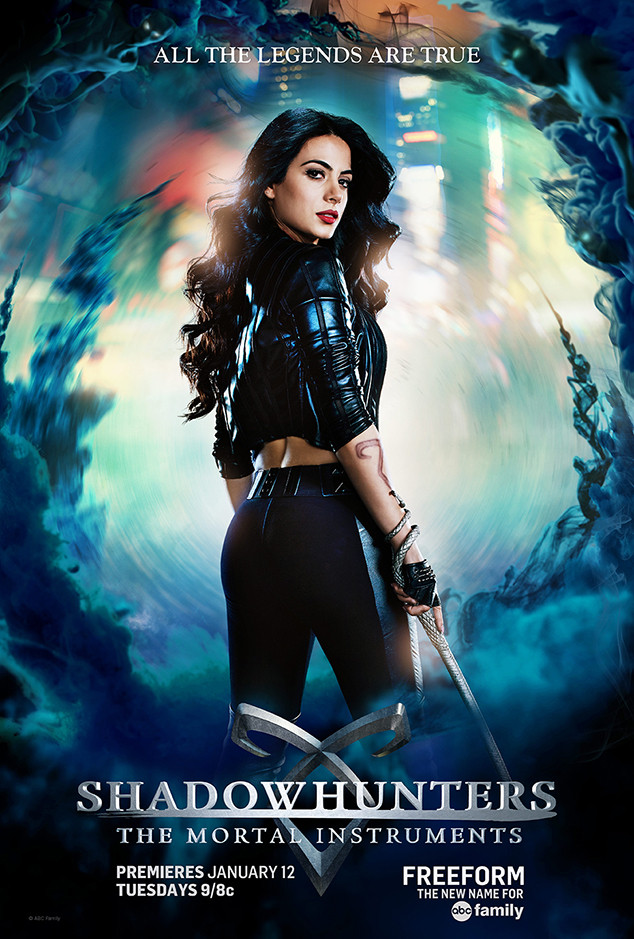
Shadowhunters Font
FantasyShadowhunters is a supernatural drama series based on the popular book series The Mortal Instruments by Cassandra Clare. It follows a group of demon hunters called Shadowhunters who fight to protect the human world from supernatural threats.
The TV show poster features the title "Shadow Hunters" in ITC Legacy Serif, with the main title in Legacy Serif Bold and the subtitle in Legacy Serif Book. Ronald Arnholm created the font after studying a 1470 Eusebius, inspired by the work of Nicolas Jenson, to revive Jenson's typography.